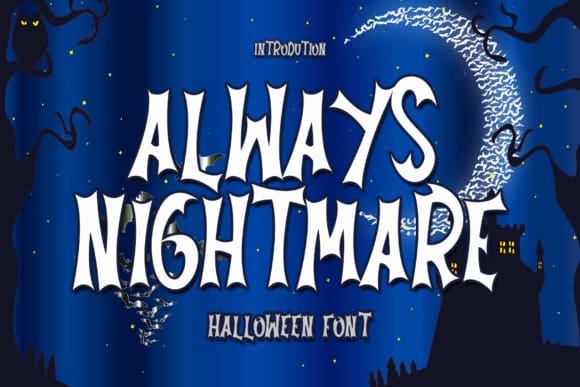
Always Nightmare Font
Always Nightmare Font is a luxury display font, described by an elegant touch, perfect for your favorite projects. Fall in love with its incredibly distinct and timeless style and use it to create spectacular designs!